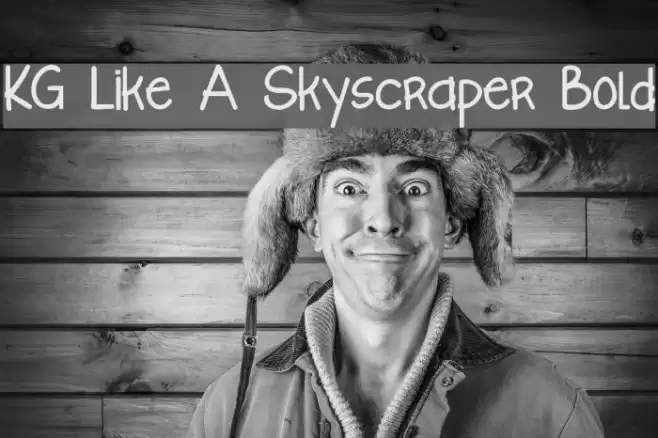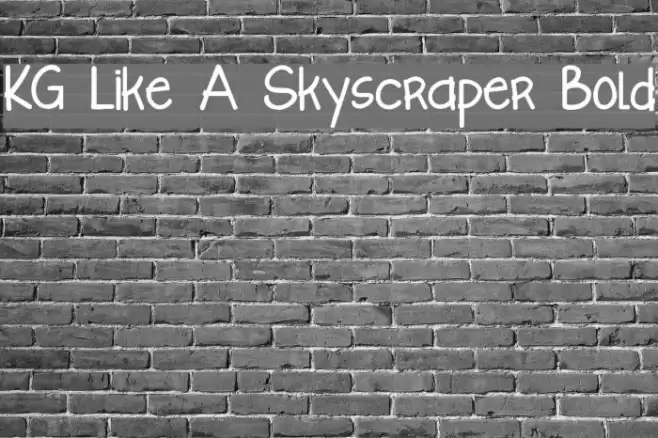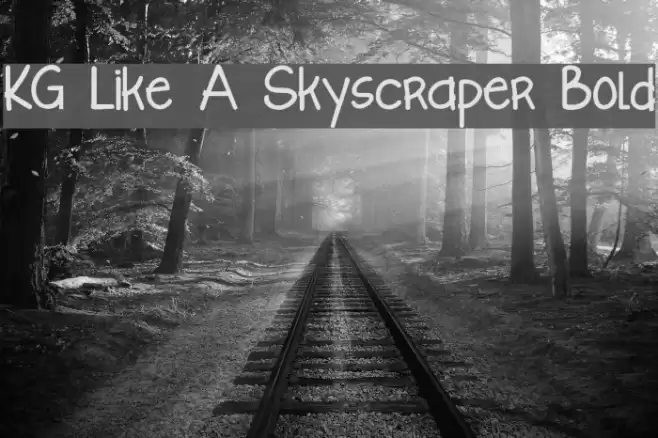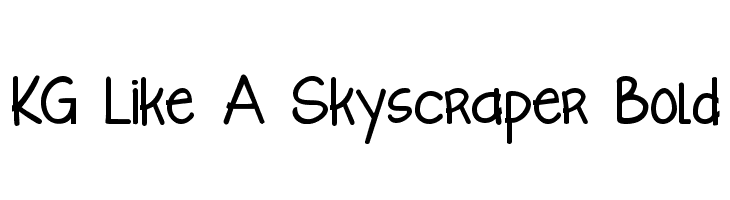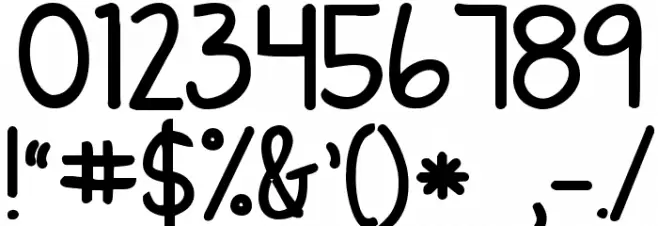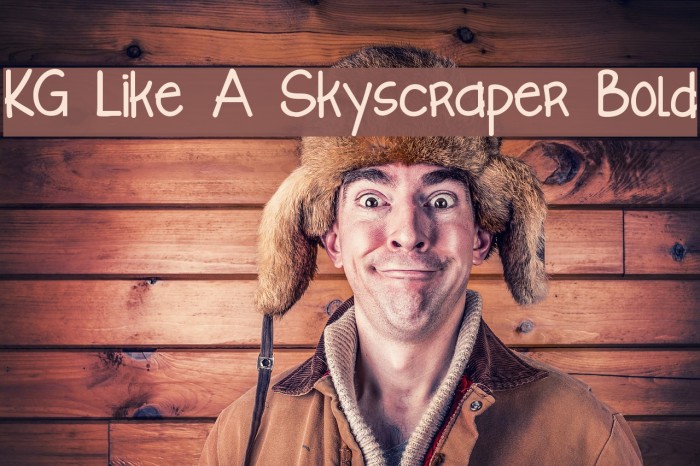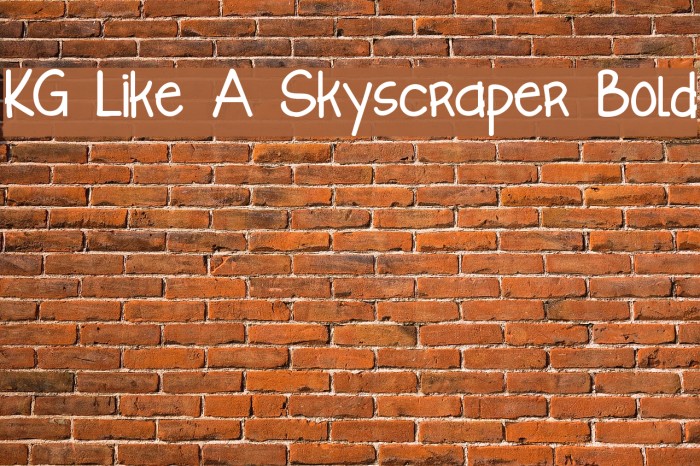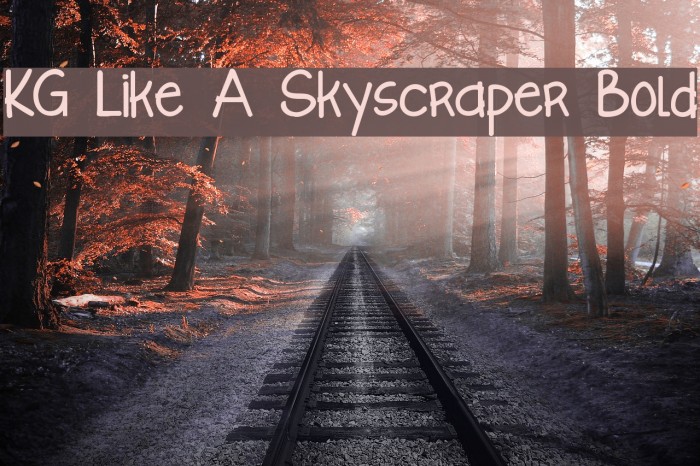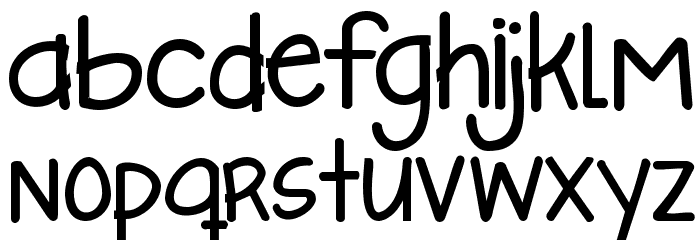
KG Like A Skyscraper Bold Font
KG Like A Skyscraper Bold Description
This font features a playful and bold handwritten style, characterized by its thick, rounded strokes and slightly irregular letterforms. The uppercase and lowercase letters maintain a consistent weight, contributing to a cohesive appearance. The numerals and special characters are designed with the same playful aesthetic, making them suitable for informal and creative projects. The overall design is approachable and friendly, with a modern touch that adds a sense of whimsy and fun. This font's boldness ensures readability while maintaining a unique and engaging visual appeal.
A bold, playful handwritten font with rounded strokes and a modern touch from Uncategorized fonts.
- Proposed Projects: Ideal for children's books, playful branding, greeting cards, and social media graphics.
- Overall Style: Modern, Playful
- Use Case: Headlines, Logos, Informal Text